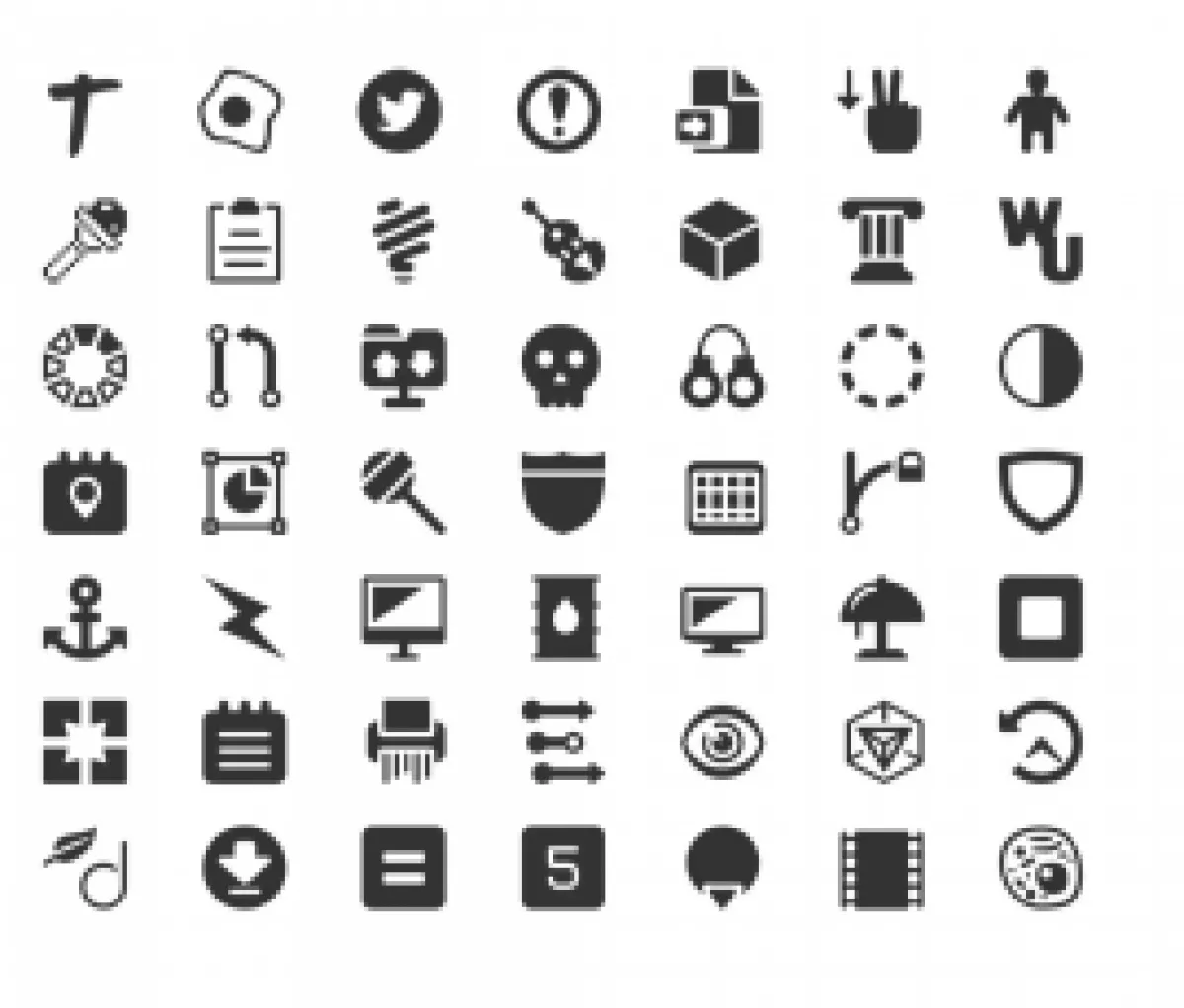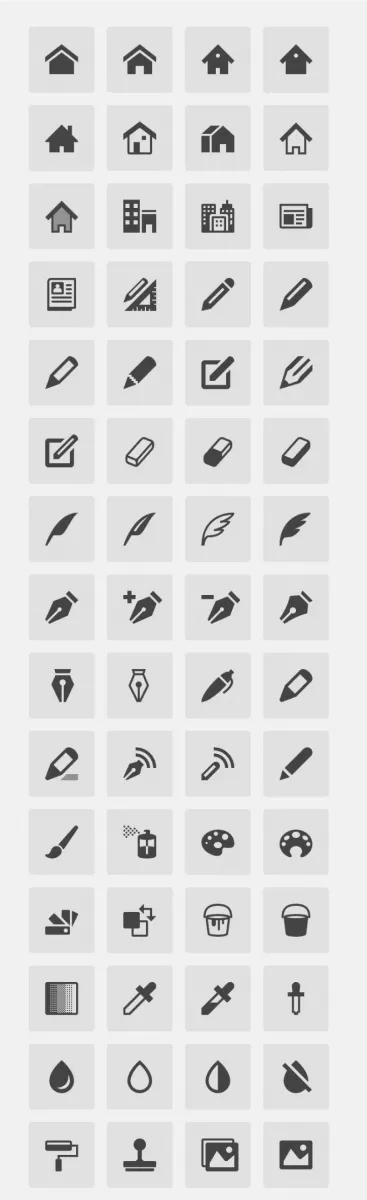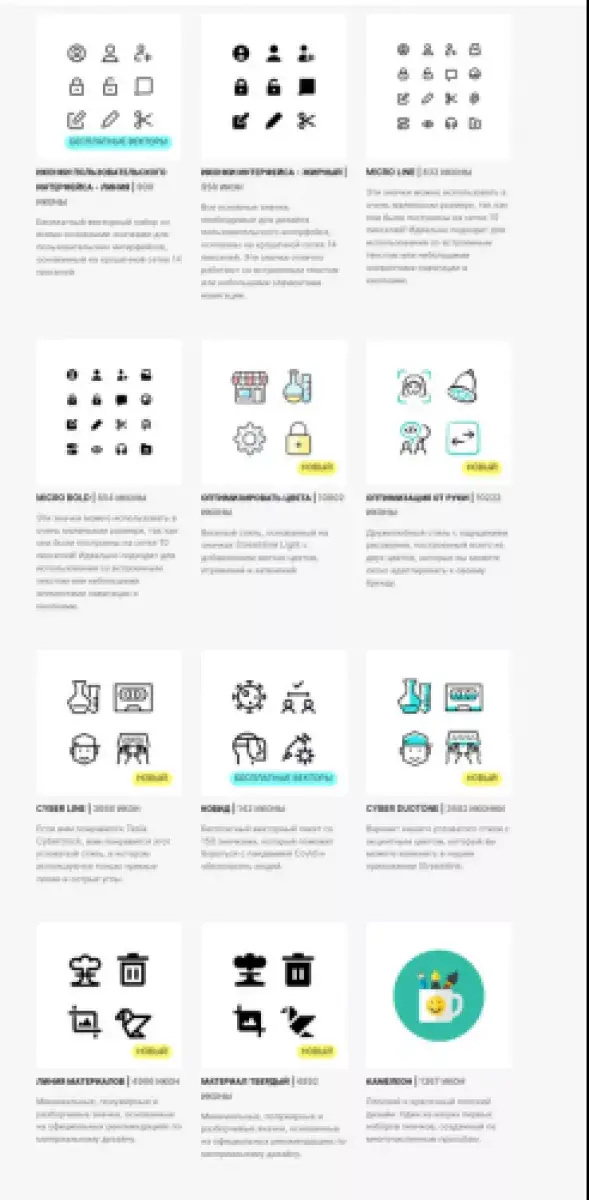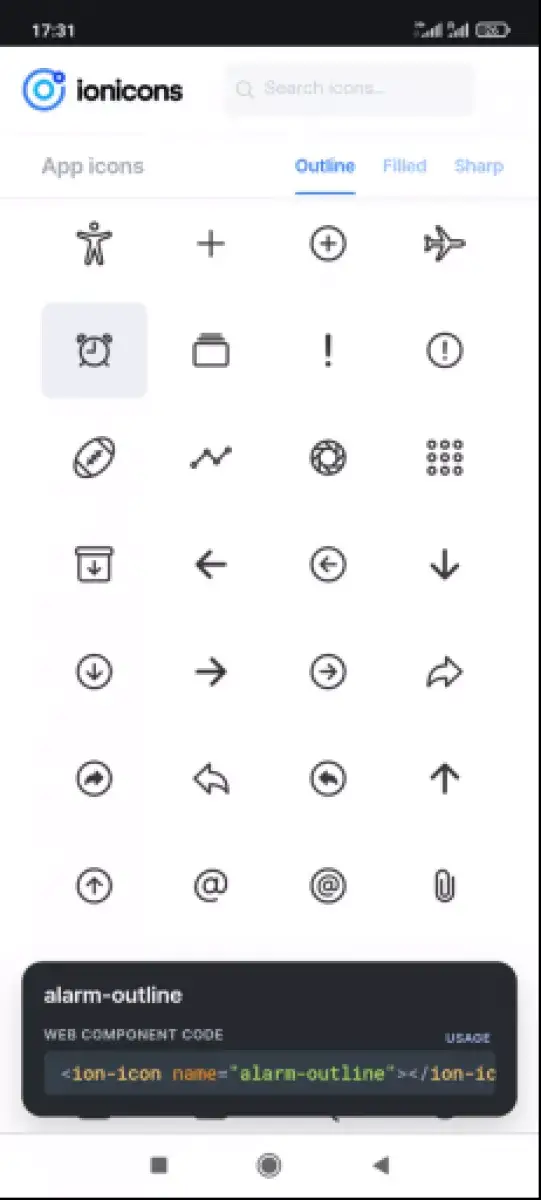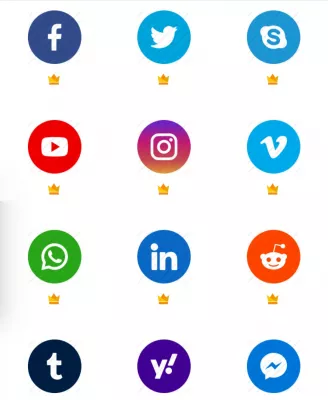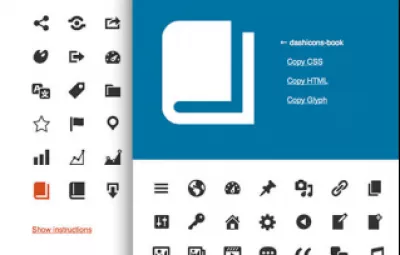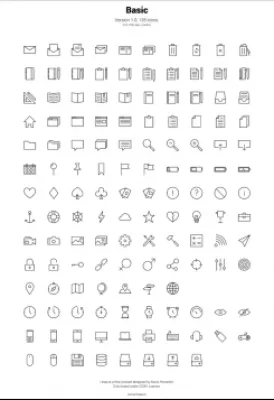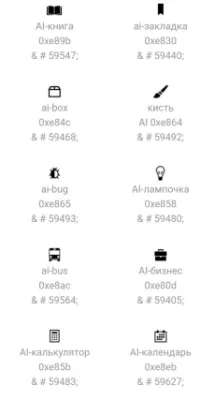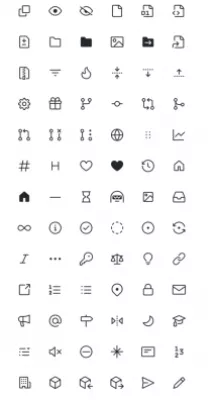
We talk about the best services that represent icons for web development, describe the pros and cons of each of them, and suggest that you choose the best one.
Looking for unique icons for your website? Constantly bumping into Font Awesome, but not finding anything interesting on it? Then be sure to read this article - here we tell you what an icon font is, describe many free sites with it, and also give samples of icons for each service. Make your choice to create a unique look!
Icon fonts have long been used in web design to create beautiful icons for a website. An icon font is a set of symbols transformed into images of different themes. Such a font is actually a text file that is turned into pictures using CSS.
- They can be modified in any way: specify size, color, background, shadow, gradient, apply pseudo-classes: hover or focus - to create your own style.
- They can be animated.
- Increasing or decreasing the size of the icon does not affect the quality, so they display correctly even on Retina displays.
- Compared to regular images, they are lighter and load faster.
- To download icon fonts, you need only one HTTP request, which can significantly increase the speed of loading pages on the site.
- They are supported by all browsers (even very old versions).
Currently, the most popular font is Font Awesome. It is known to almost everyone who has ever been involved in website development. It was originally created for Bootstrap, but has now become a standalone icon and image library with over 600 icons.
However, despite this, there are many sites with similar content. Free or paid fonts from other publishers also have their own unique icons, which are useful when choosing your own logo for your site. We will tell you about them in this article - about the best and most complete icon fonts that may suit you as an alternative to Font Awesome.
1. WebHostingHub Glyphs
One of the largest icon sets, it contains 2075 images. It is possible to download them in PNG format in two sizes (16 and 32 pixels). You can change the color of the icons, their sizes, like in many other sets of icons. The site even has an illustrative example of how this can be done: four sliders next to a random picture determine its size, color, shadow and focus of the shadow.
The site is actually very user-friendly and understandable even for a child. All icons are divided into categories, several times there are buttons for downloading the entire font in one file, and below there is a detailed instruction with examples of how to correctly use this icon font in your code.
WebHostingHub Glyphs2. Dashicons - The Official WordPress
At the moment, the Dashicons WordPress library contains 197 icons, which are divided into 15 sections:
- Admin Menu;
- Welcome Screen;
- Post Formats;
- Media;
- Image Editing;
- TinyMCE;
- Posts Screen;
- Sorting;
- Social;
- WordPress.org Specific: Jobs, Profiles, WordCamps;
- Products;
- Taxonomies;
- Widgets;
- Notifications;
- Misc.
The company regularly releases updates with the addition of new pictures, as well as with improved system capabilities. However, this collection still lacks some icons, for example, social networks.
On the official website, you will see this interface. When you click on the icon you like, it will appear in the header next to its links in several formats: CSS, HTML and Glyph.
Dashicons - The Official WordPress3. Ionicons
This Font Awesome alternative features 528 different icons to suit various menus, inner lists, and tabs. The motto of the company is: Made with love by hand. You can believe this by paying attention to the detail with which these icons are made.
Ionicons are releasing their icons for use in mobile apps on IOS, Android, web apps, and desktops. They have open source code, which greatly facilitate the work on site design. How it looks is shown in the screenshot below.
Ionicons is a product of the Ionic company, which not only creates icons for websites, but also offers users a range of products that are convenient for website developers. They allow you to create, secure, and deliver enterprise-grade applications on any platform.
Ionicons4. Standard HTML characters
In addition to specially created services, do not forget about the absolutely free collection of various HTML icons. You can change their size and color while maintaining good image quality.
All icons are in thick line, and the code is open to everyone. In our opinion, standard HTML characters are a great alternative to Font Awesome.
Standard HTML characters5. Linea Iconset
Linea Iconset has 716 icons in its assortment, with the help of which you can establish better contact with the user, because in the modern world there are many words and text to nothing. This site offers to download a whole pack of a collection of icons in areas, for example, Music, Electronic commerce and others. The icons themselves look like lines forming a drawing of a particular value.
SmashiconsConclusion
On the Internet, you can easily find many services that give everyone thousands of beautiful icons for free or for a fee. With their help, you can design a website or a page on a social network. There are many alternatives to Font Awesome, but, unfortunately, there are few Russian-language sites. Although, even without translation, it is clear how to find the desired icon and code for it. Font Awesome is not the only service worth seeing, and more websites with unique images are popping up every day.